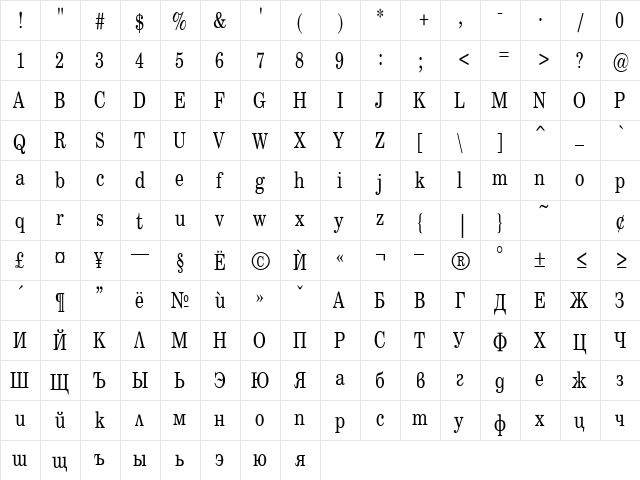
SentryCond Normal
Design Context for SentryCond Typeface
SentryCond offers clean, dependable letterforms without strong stylistic allegiance, making it a practical choice for designers who need flexibility. Its narrow stance lets it pack a punch even in space-constrained designs.
Pro Tip: Pair SentryCond with a font of contrasting weight or personality to build a more expressive typographic hierarchy.